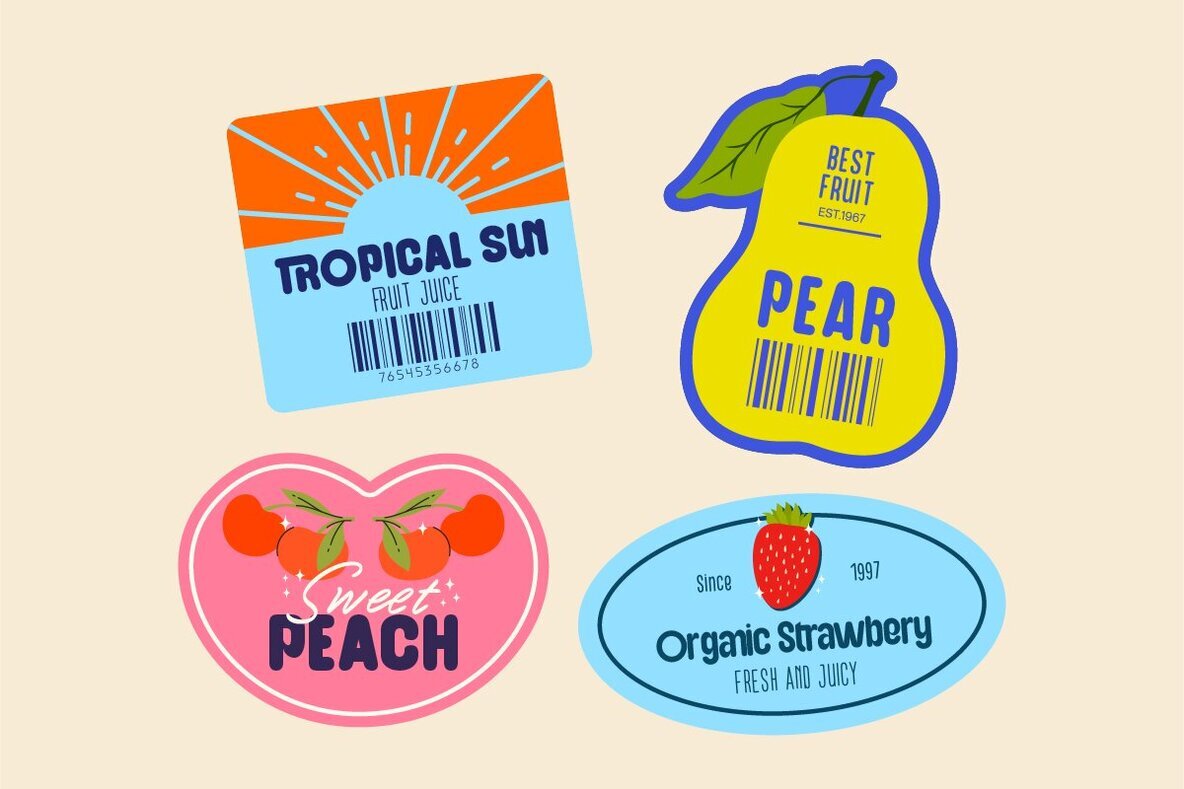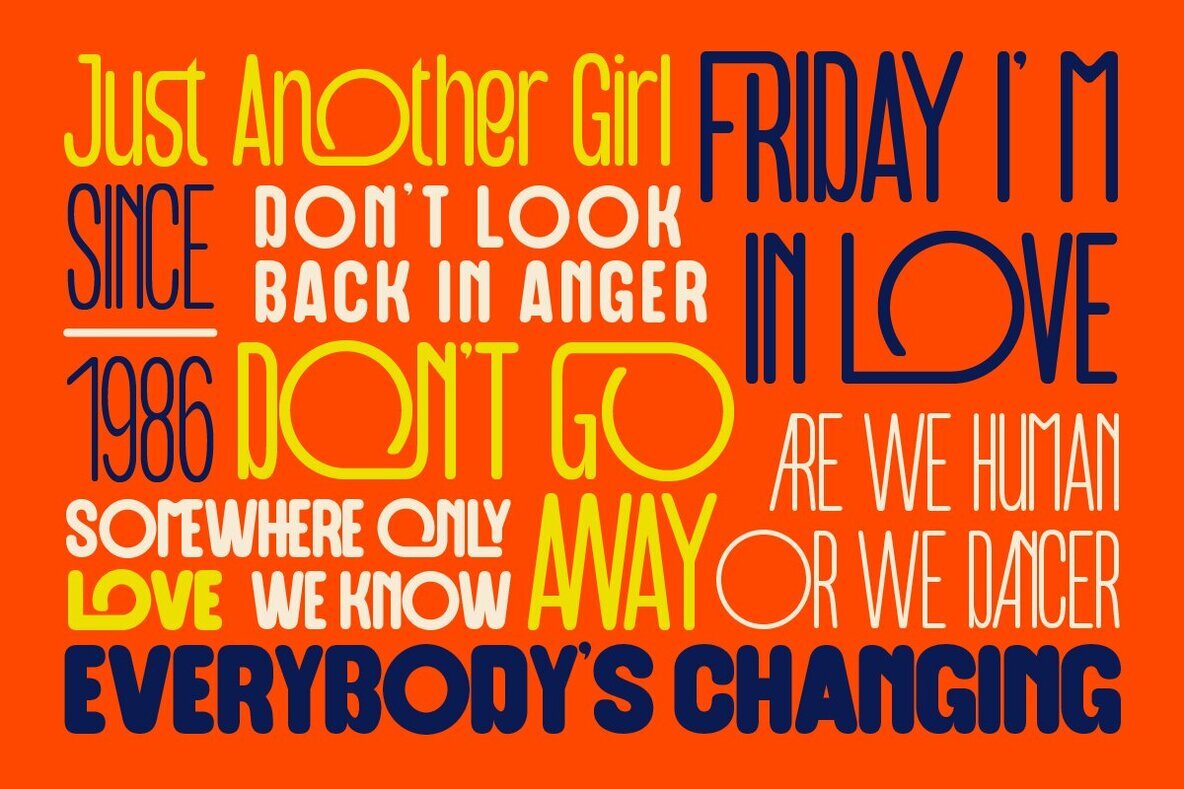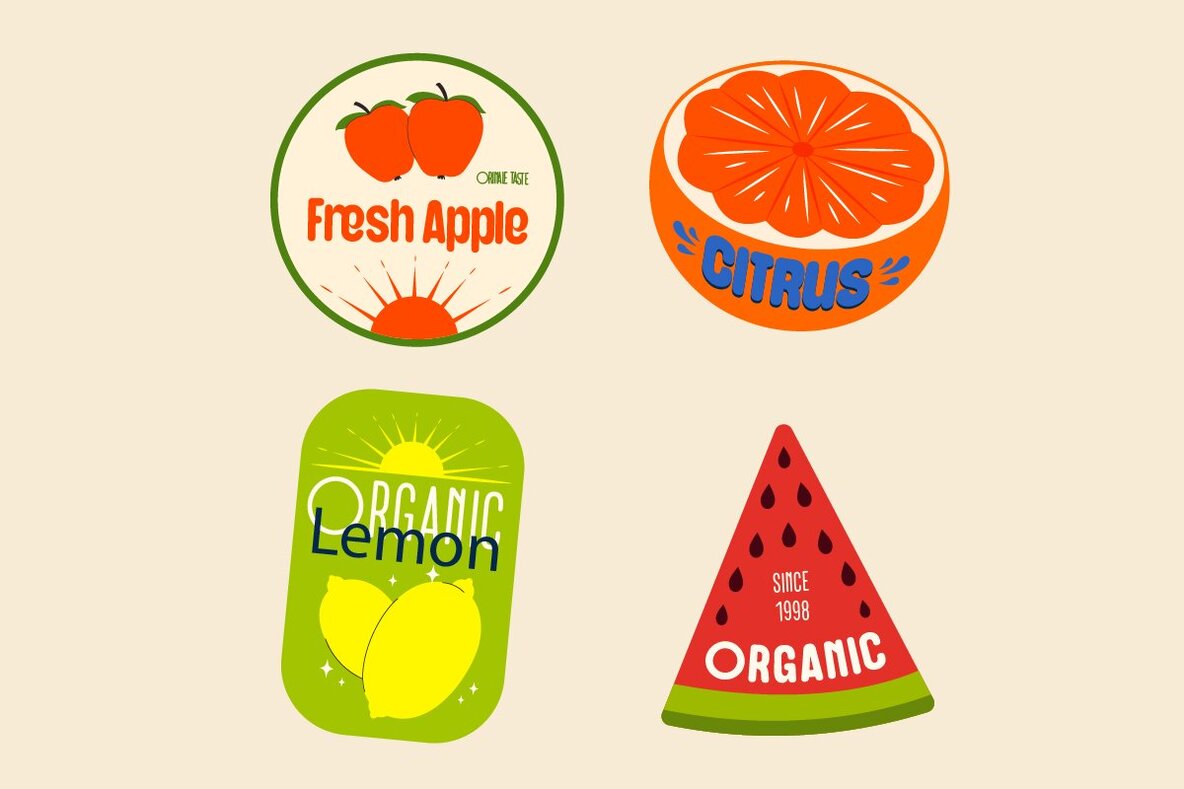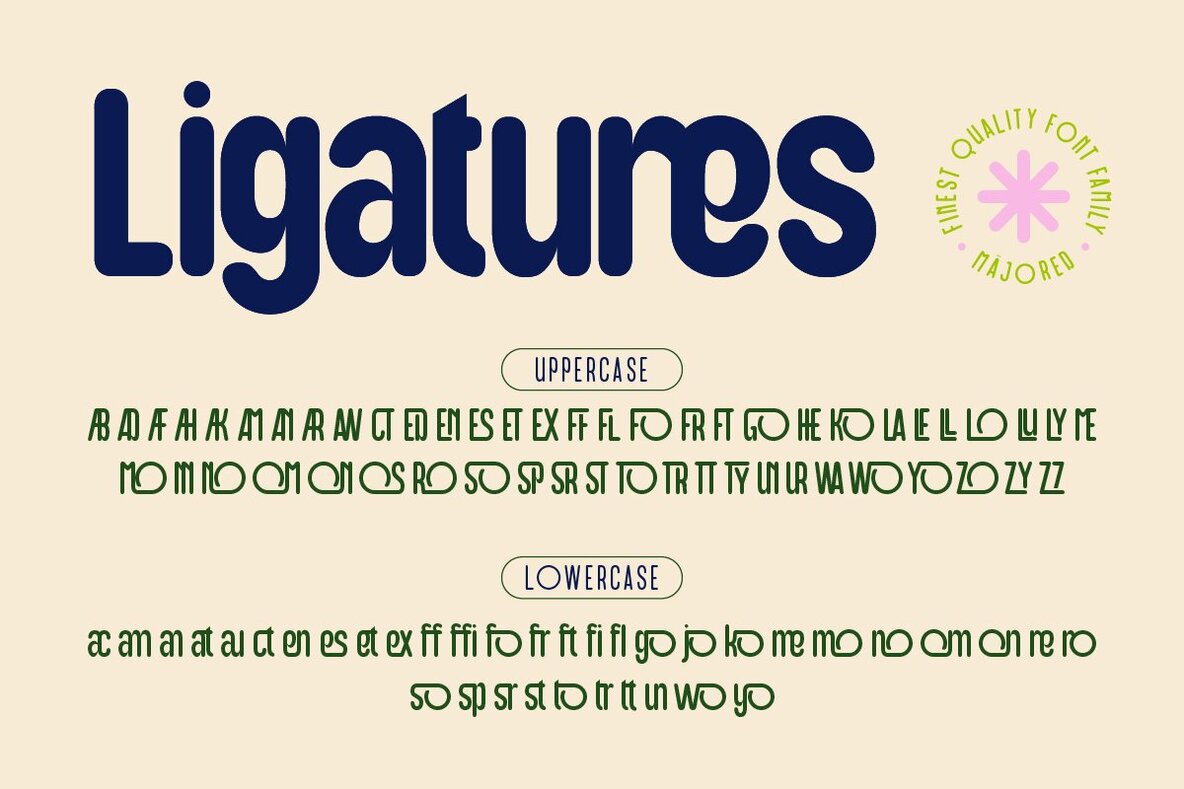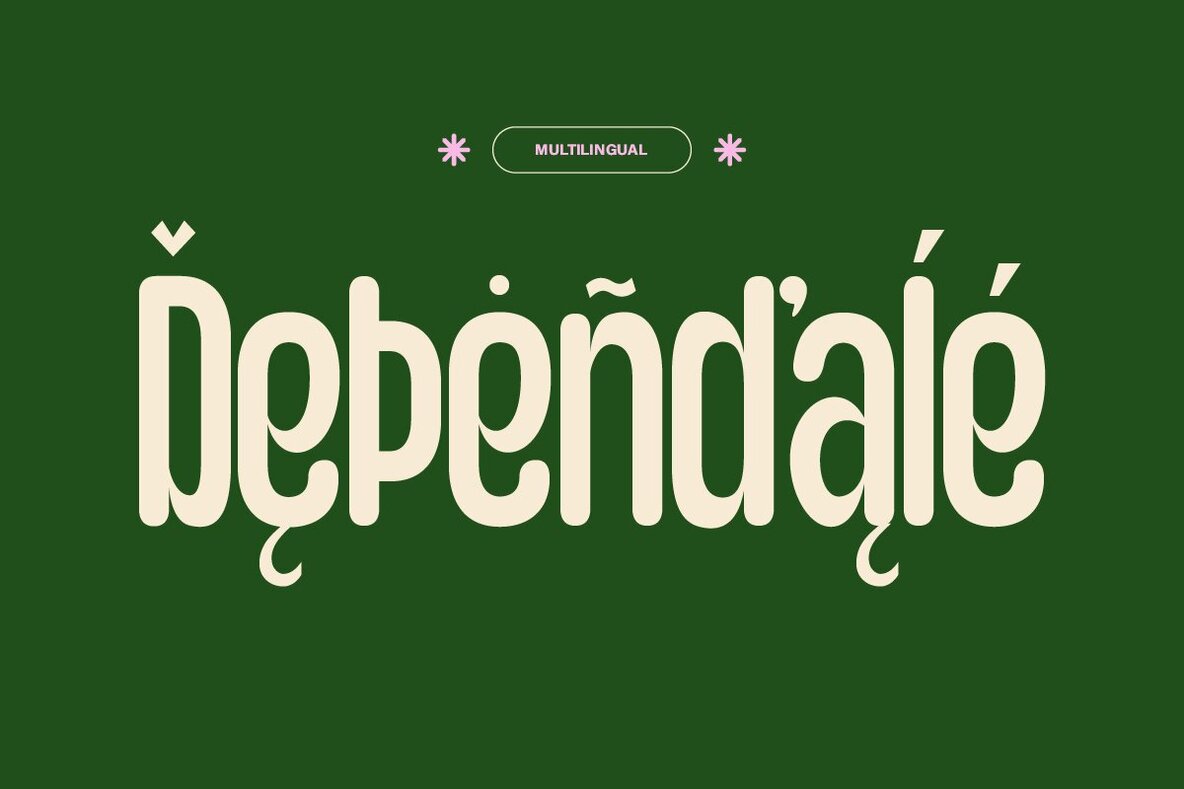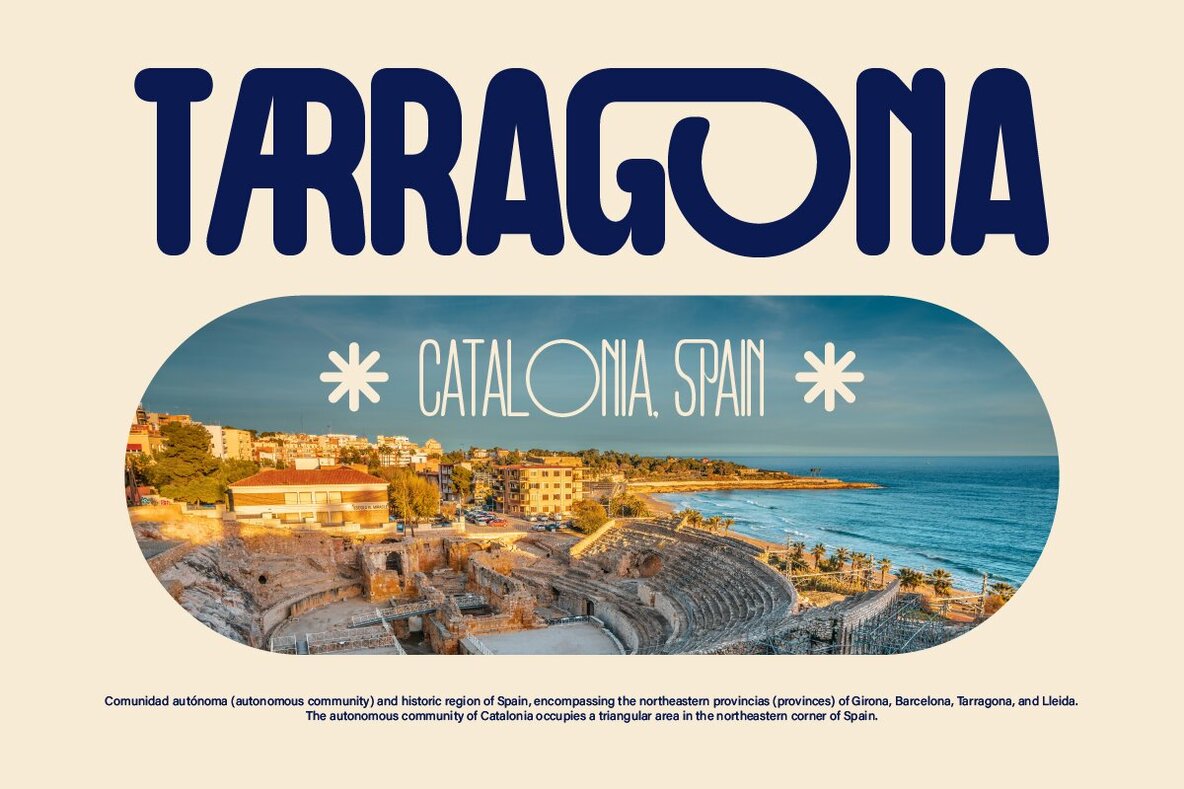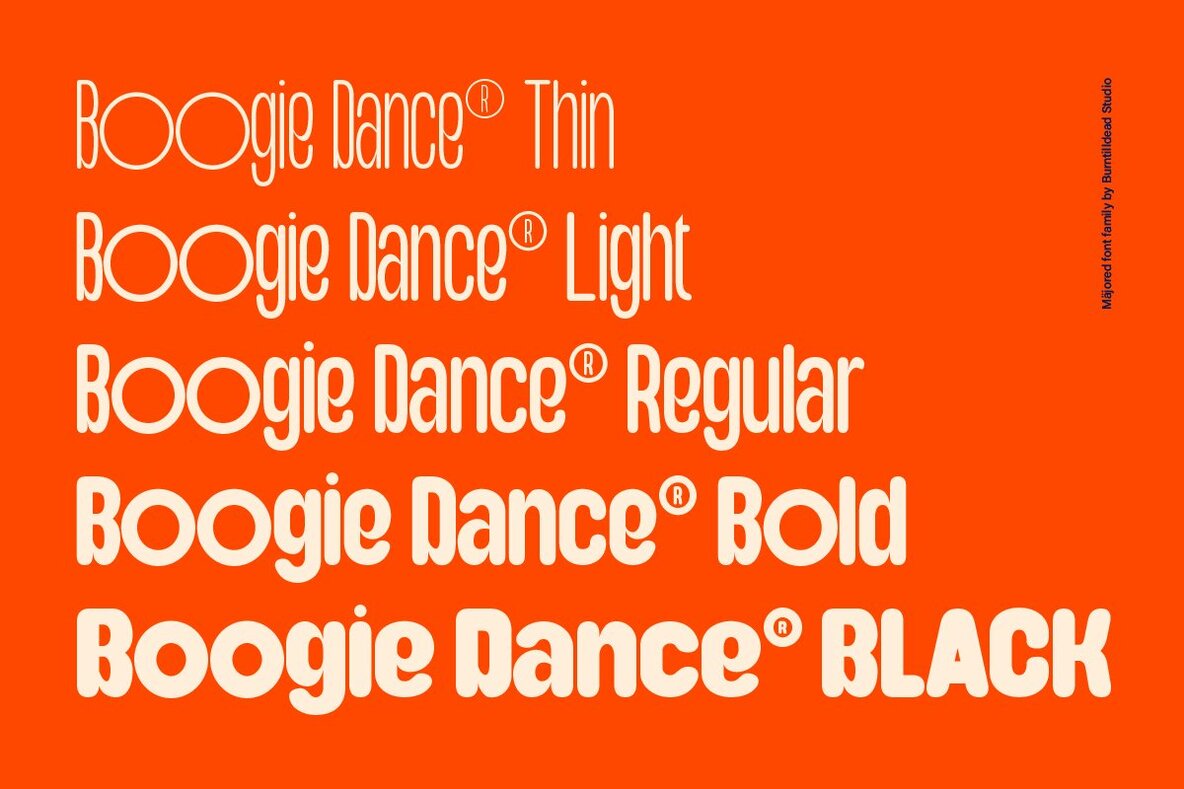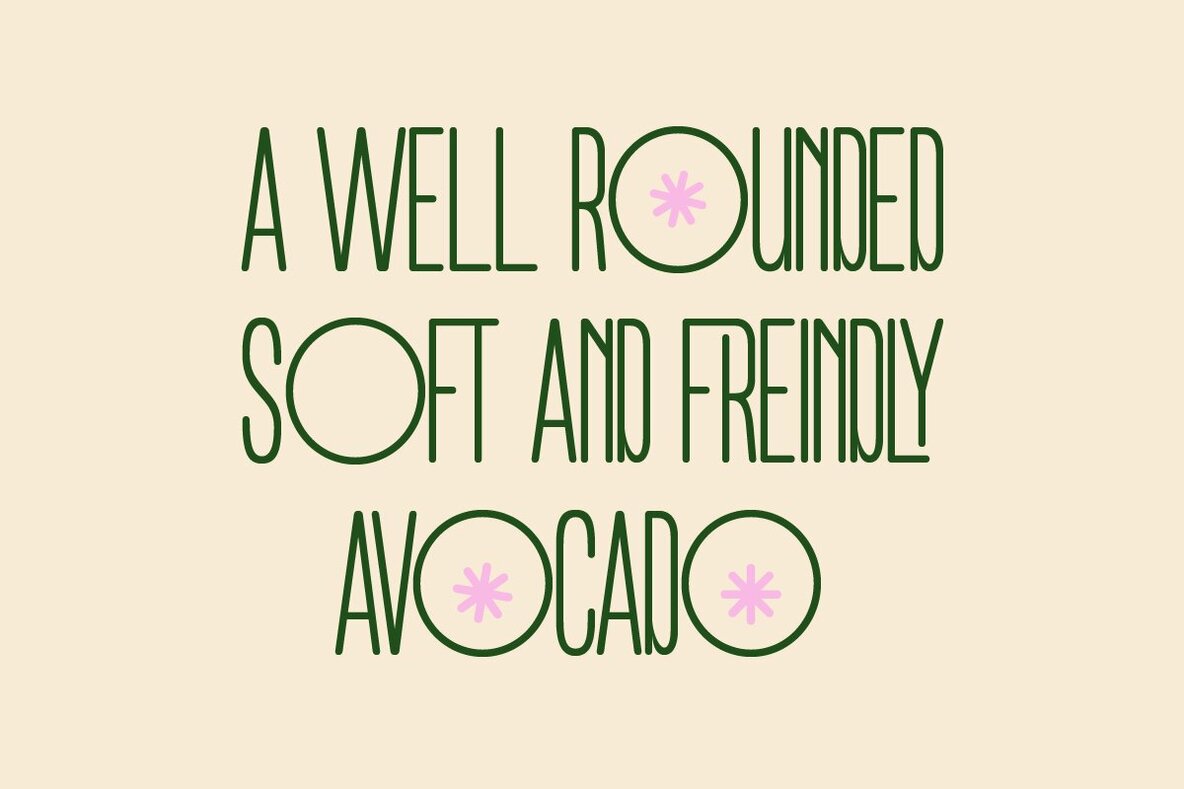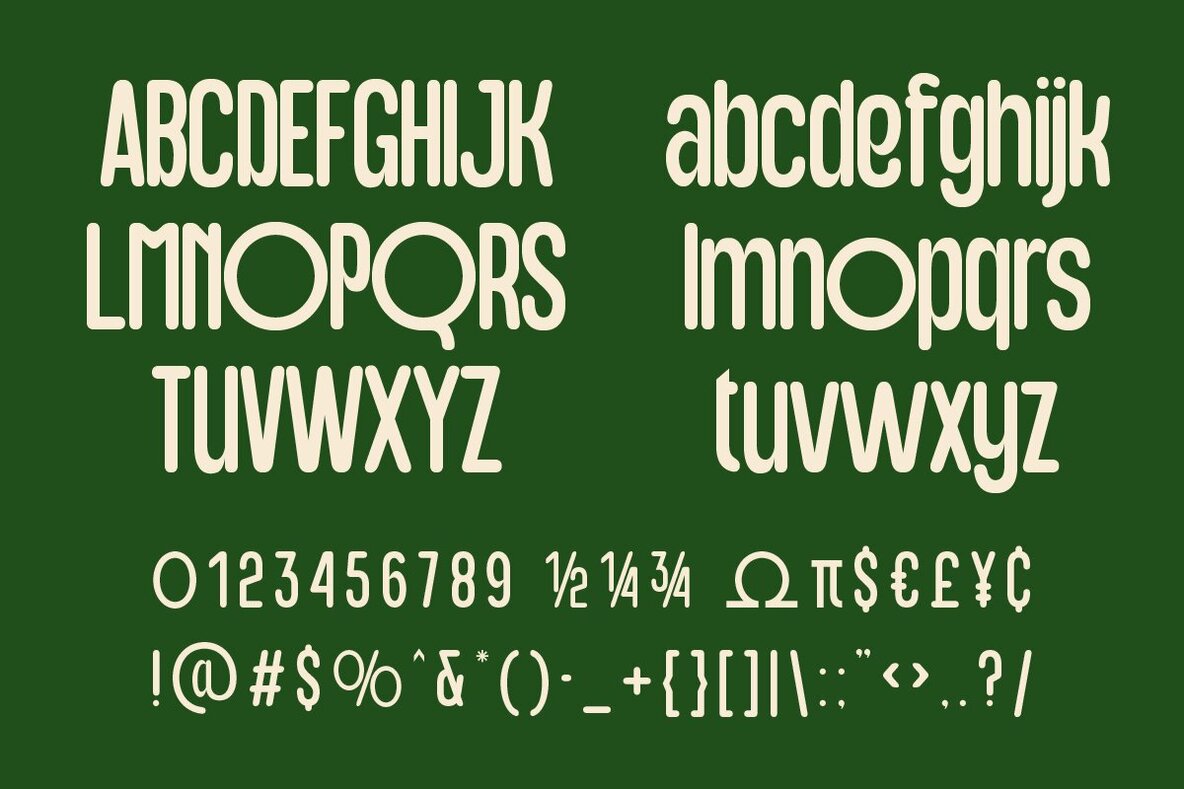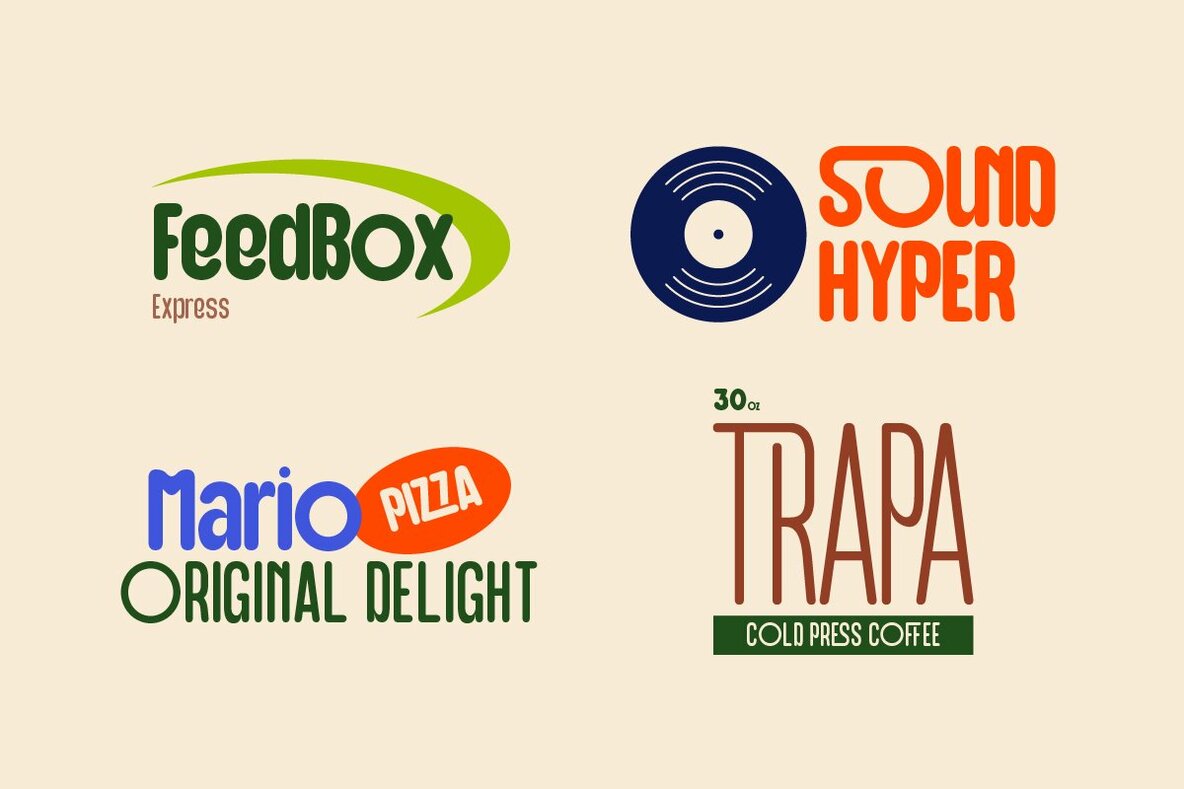
Majored Font
Majored is a groovy font family that combines playfulness with a unique style. Its bouncy curves create an energetic and friendly appearance, ideal for projects requiring a cheerful and inviting touch. Majored is versatile, offering a range of weights from thin to black, while maintaining clear readability despite its playful design. This makes it perfect for playful brands, social media campaigns, event posters, and more. Features:
This font family features an extensive set of characters, including uppercase and lowercase letters, numbers, and punctuation. It enhances creative possibilities with ligatures and alternates, accommodating a variety of design needs. Additionally, it supports multiple languages, making it a versatile choice for international projects. Explore Majored to bring fun and energy to your design projects while ensuring text remains clear and engaging.